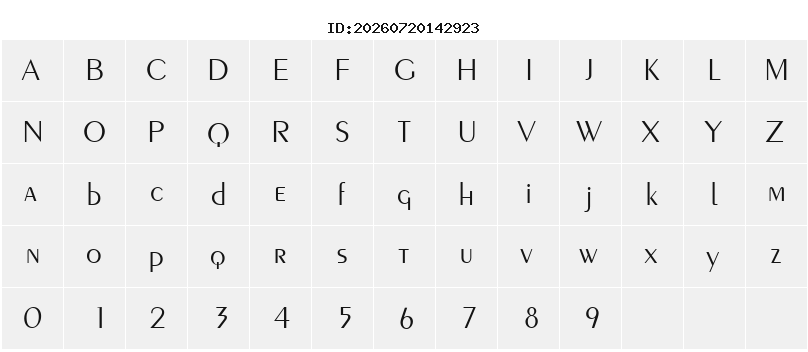
French Vogue Preview
• Font Name: French Vogue
• Full Font Name: French Vogue
About French Vogue.ttf
French Vogue.ttf is a modern, elegant sans-serif font designed for ultimate readability and visual harmony. Perfect for branding, headlines, web design, and print materials.